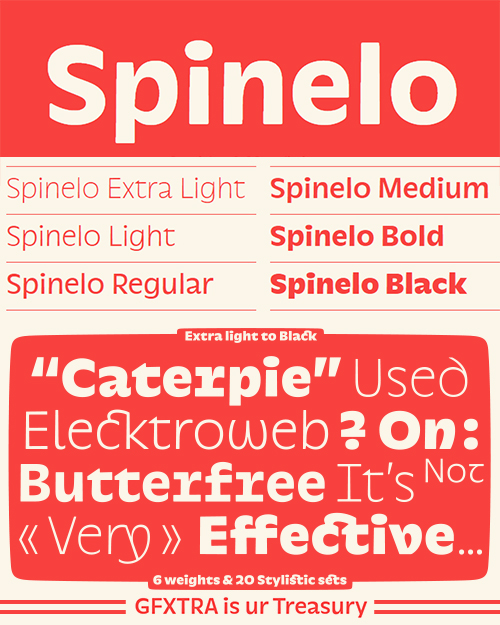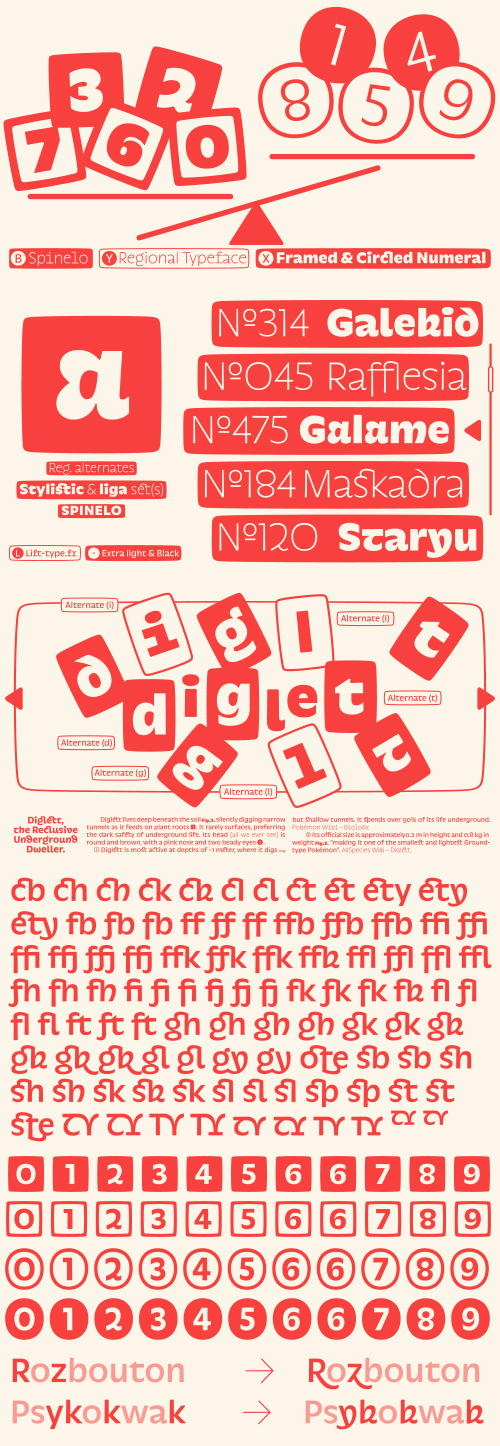
Spinelo - 6 Weights & 20 stylistic Set
LIFT-TYPE | Design: Antoine Brun | Release: 2026 | 1719 glyphs
- Spinelo is a typeface from Glypheon, a collection of four subfamilies inspired by metamorphosis and evolution, notably referencing Pokémon. Spinelo is one of the family’s text styles: a sans-serif between humanist and grotesque, designed for body text that is meant to be seen. Inspired by Antique Olive, it features rounded edges, organic shapes, and a quiet yet distinctive presence. Through its many glyph variants, Spinelo offers designers a rich toolbox for multiple creative directions.